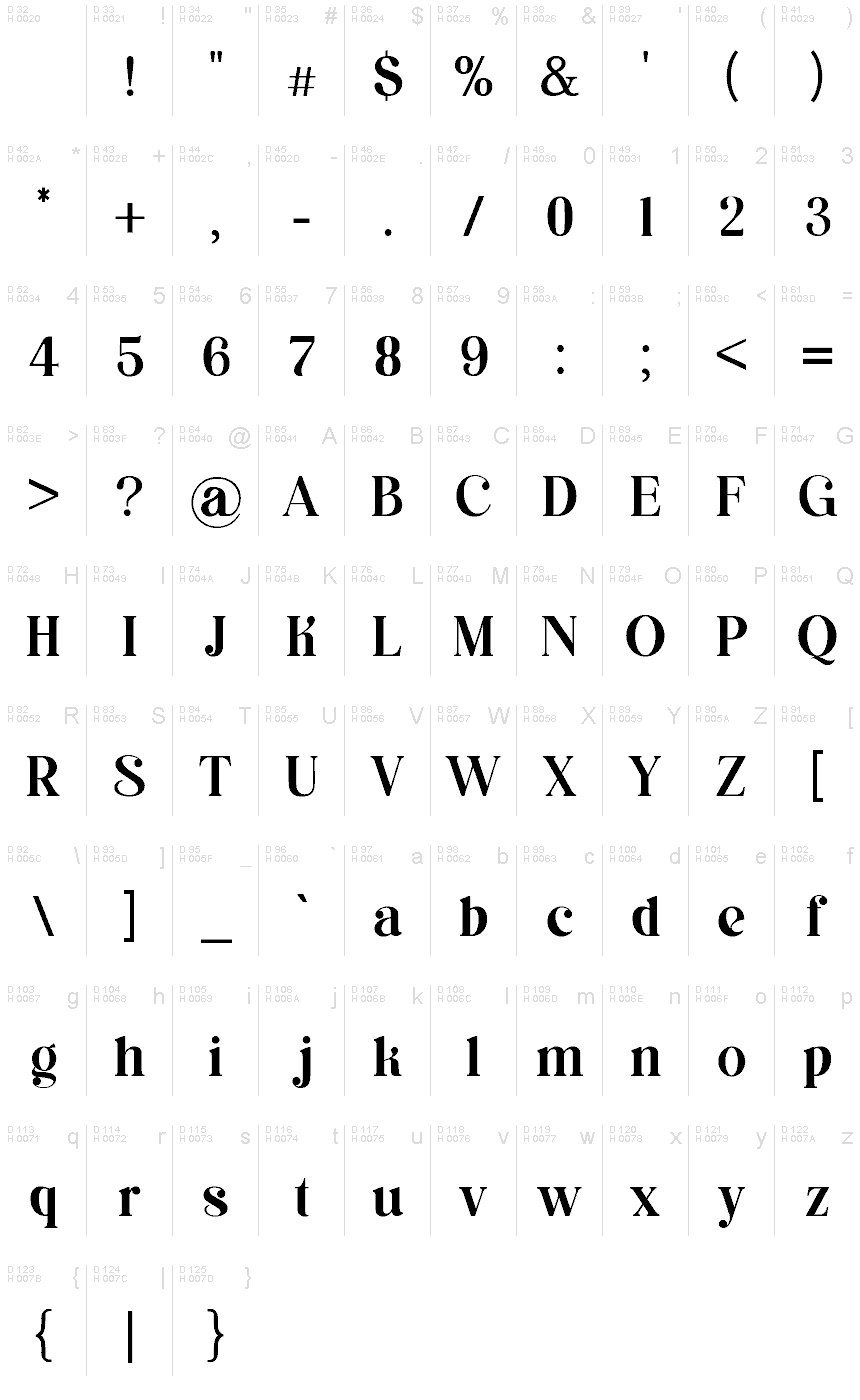
asimilates Regular
Asimilates font, designed by UI Creative, is a bold serif font created to exude elegance, sophistication, and reliability. The classic letters of this font display the fine art of tradition with all its characteristics which users will recognize at first instance. The asymmetries are particularly tickling as they add a modern touch to the otherwise formal character of the design.
Graphic designers who approach Asimilates are free to use this work of art in both digital and print designs. Use it for long papers, blogs, book covers, movie posters, titles/subtitles/headings in all sorts of publications and articles. Classic style branding projects such as logo design should also highly benefit from this one-of-a-kind typeface crossing time generations!